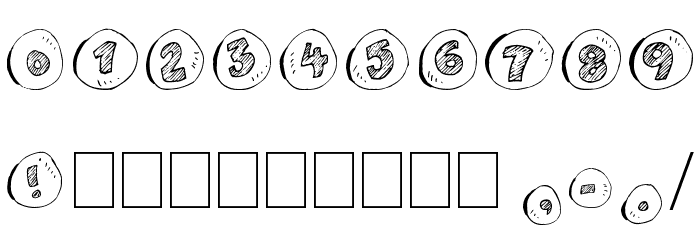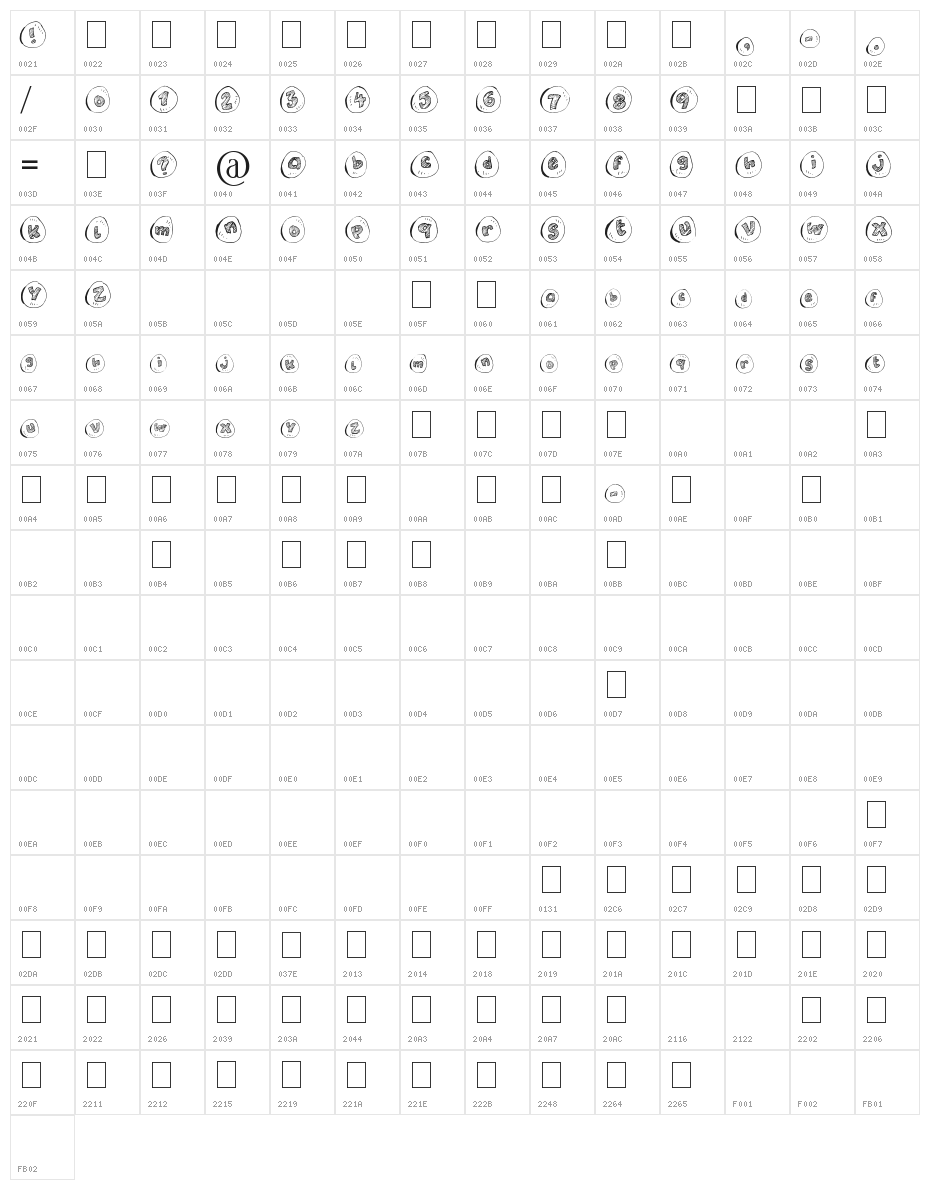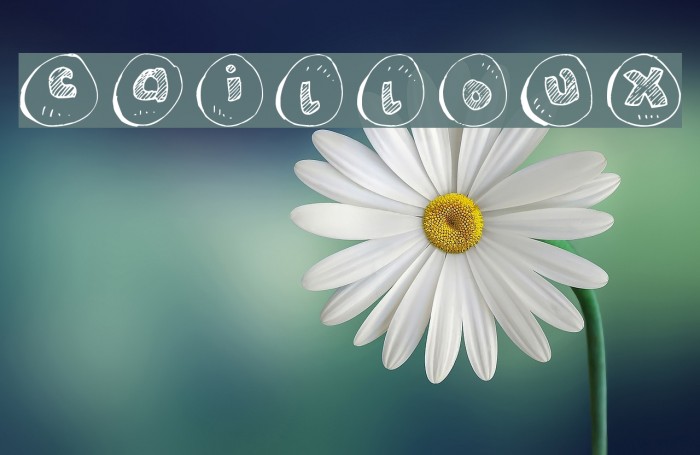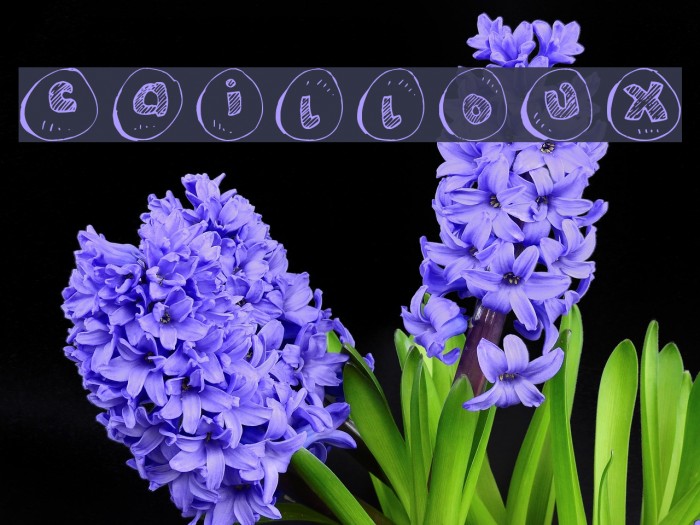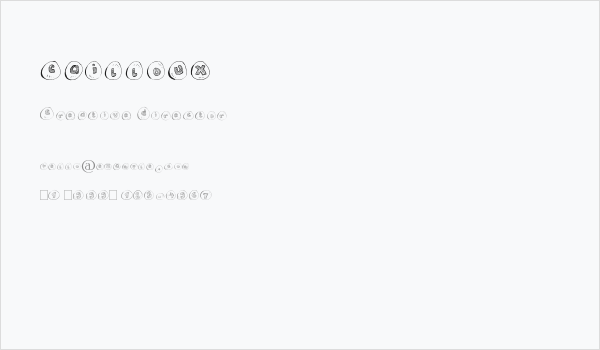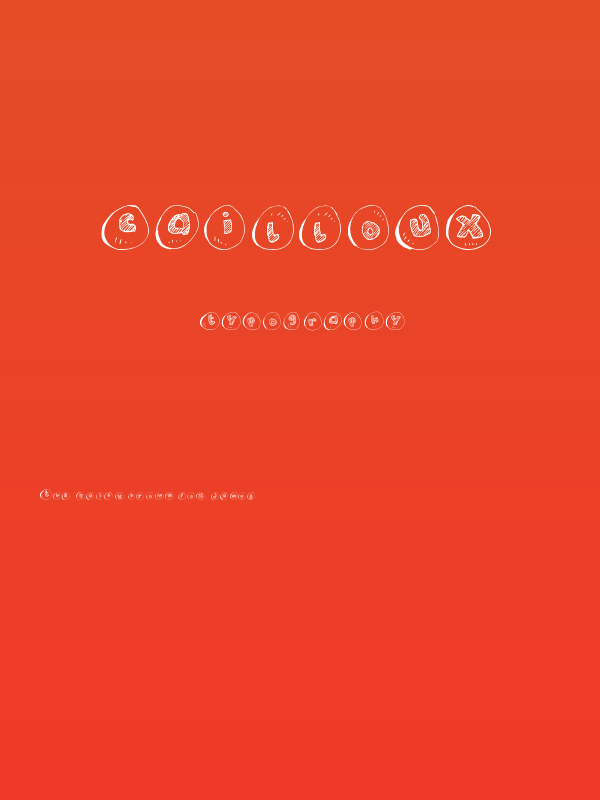
cailloux Font
cailloux Description
This playful and whimsical font features letters and numbers encased in irregular, pebble-like shapes, giving it a hand-drawn and organic feel. Each character is uniquely crafted with a sketchy outline and subtle shading, creating a sense of depth and texture. The font's informal style is reminiscent of doodles or children's drawings, making it ideal for projects that require a fun and approachable aesthetic. The characters are evenly spaced within their pebble forms, maintaining a consistent visual rhythm across the typeface.